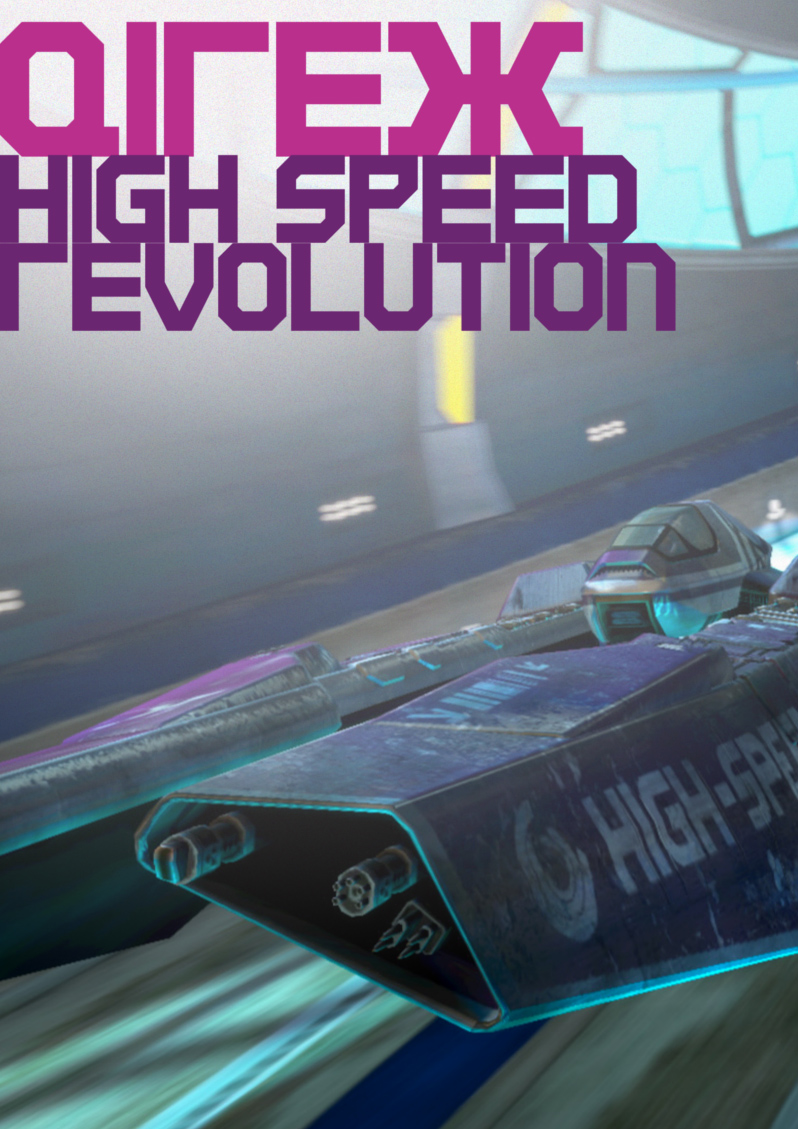
"Here is a font based on the logo and slogan 'High Speed Revolution' for Qirex, a team in the Wipeout series. The fonts feature the upper-case alphabet, and where examples are not provided, I've done my best to stick to the 'rules' of the letter structure. Included in the package: -A Promotional Poster showcasing the font -Font -Example Logo Graphic -Team Colours Graphic" Based on the typeface used by Team Qirex in Wipeout HD. Made in 2009. |